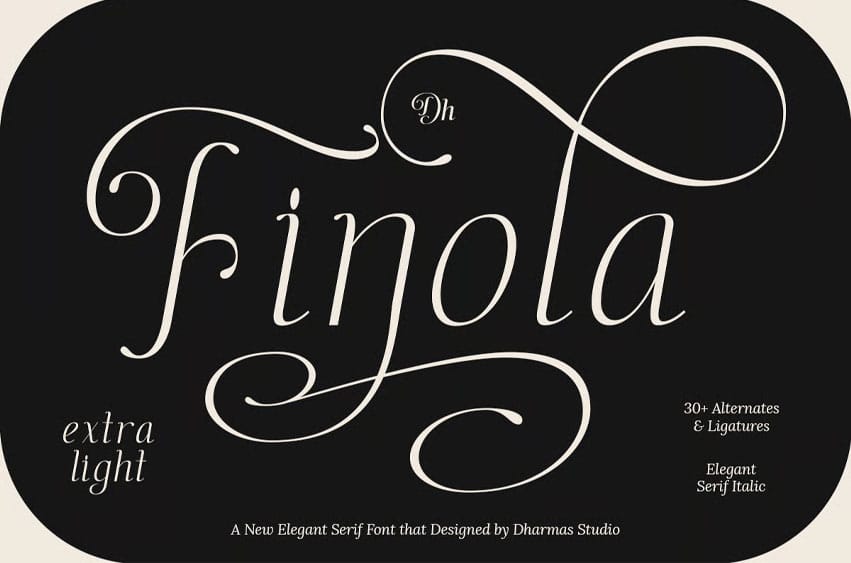
Finola Extra Light Font is a soft and graceful serif font that brings a gentle, refined touch to your designs. Inspired by classical calligraphy and the fluid beauty of Baroque details, this lighter weight emphasizes elegance, making it perfect for wedding stationery and upscale packaging.
With its flowing curves, delicate contrast, and subtle swashes, Finola Extra Light enhances compositions that require both sophistication and lightness. This font includes uppercase and lowercase characters, numerals, punctuation, ligatures, and stylistic alternates—providing everything you need for a polished, expressive layout.
- 1 Weight: Extra Light
- 30+ Swash Alternates and Ligatures
- Letters, numbers, punctuation, and symbols
Multilingual Characters available for:
Afrikaans, Albanian, Asu, Basque, Bemba, Bena, Breton, Chiga, Cornish, Dutch, English, Estonian, Filipino, Finnish, Friulian, Galician, German, Gusii, Indonesian, Irish, Italian, Kabuverdianu, Kalenjin, Kinyarwanda, Luo, Luxembourgish, Luyia, Machame, Makhuwa-Meetto, Makonde, Malagasy, Manx, Morisyen, North Ndebele, Nyankole, Oromo, Portuguese, Quechua, Romansh, Rombo, Rundi, Rwa, Samburu, Sango, Sangu, Scottish Gaelic, Sena, Shambala, Shona, Soga, Somali, Spanish, Swahili, Swedish, Swiss.